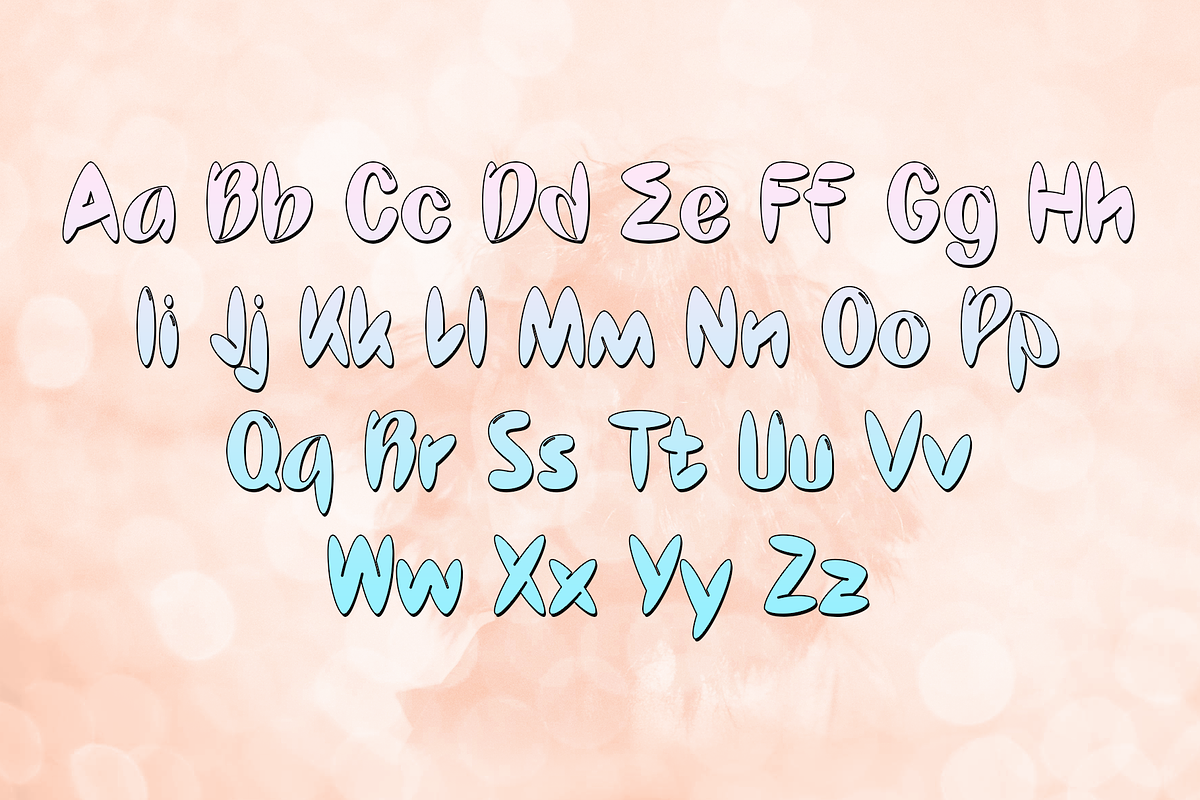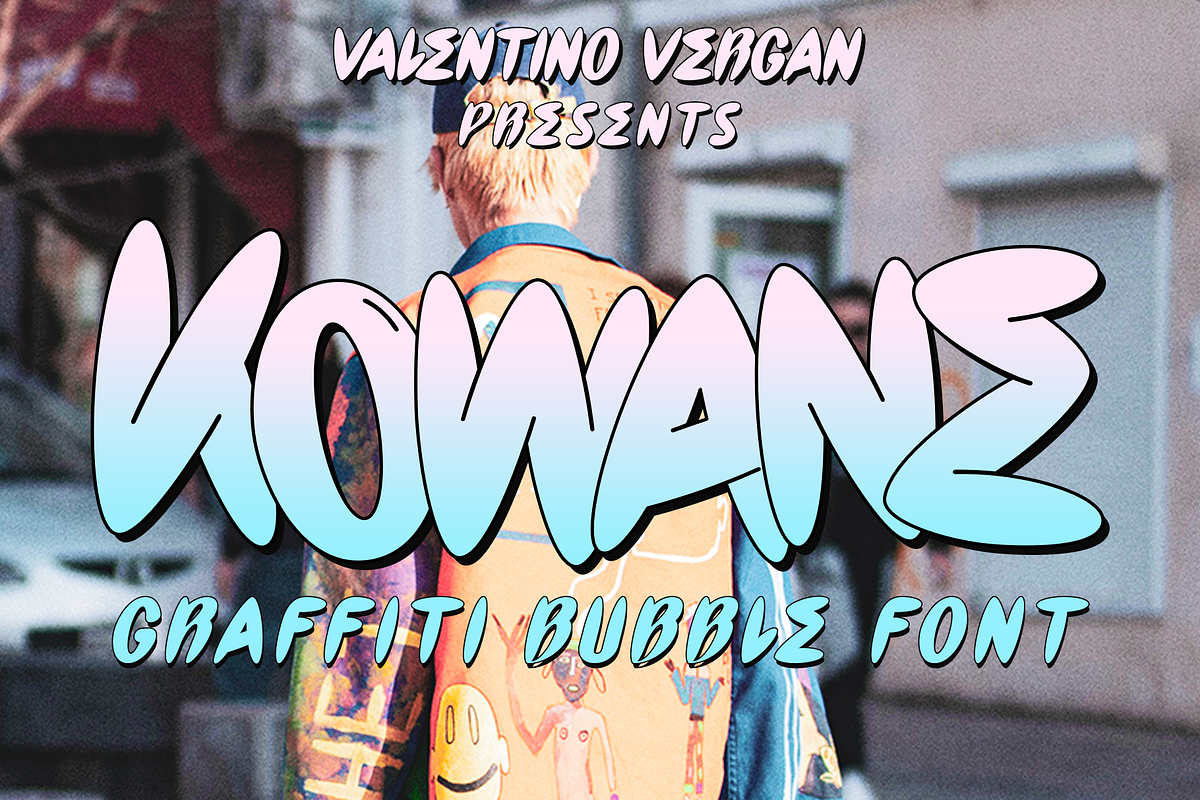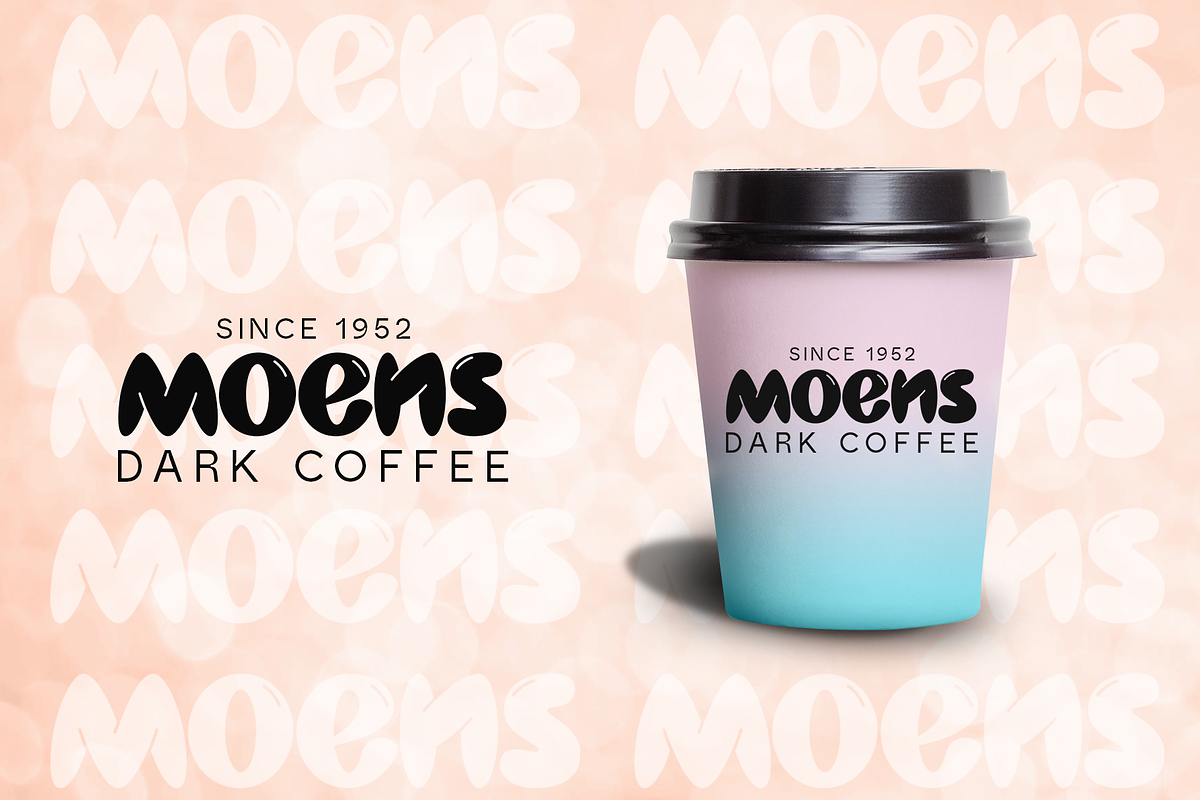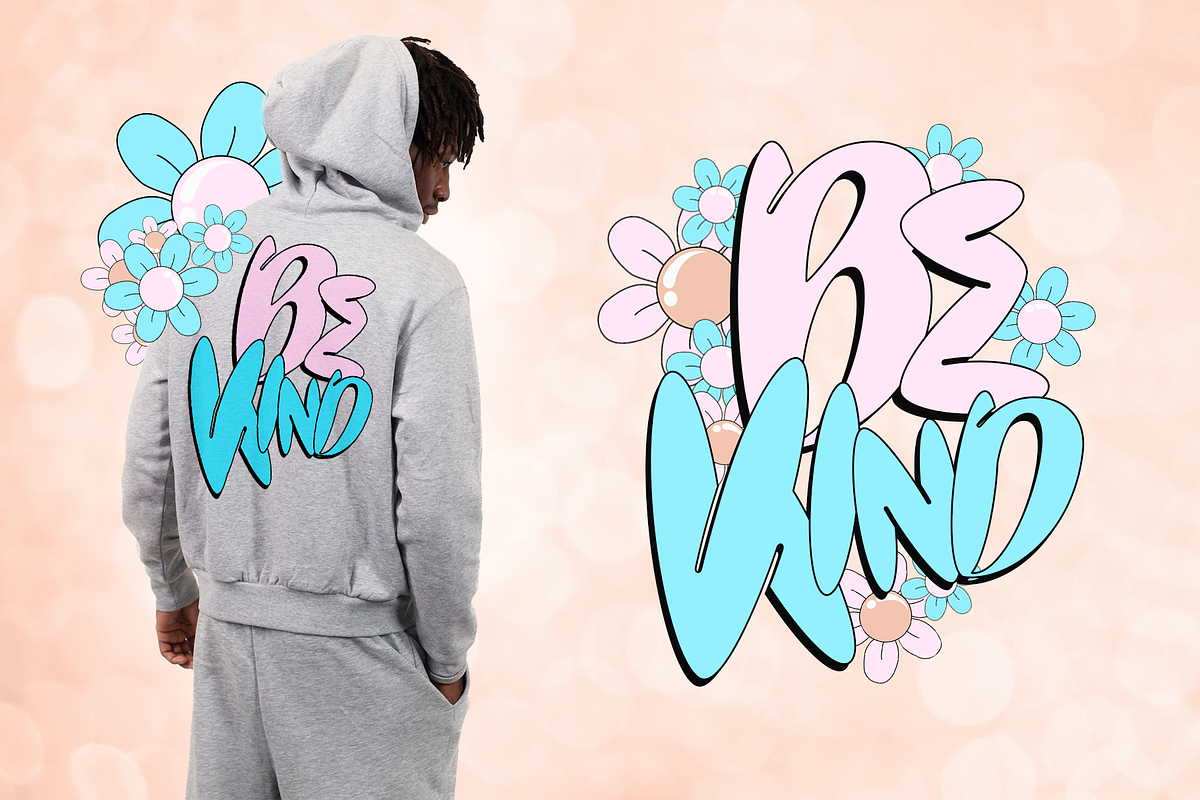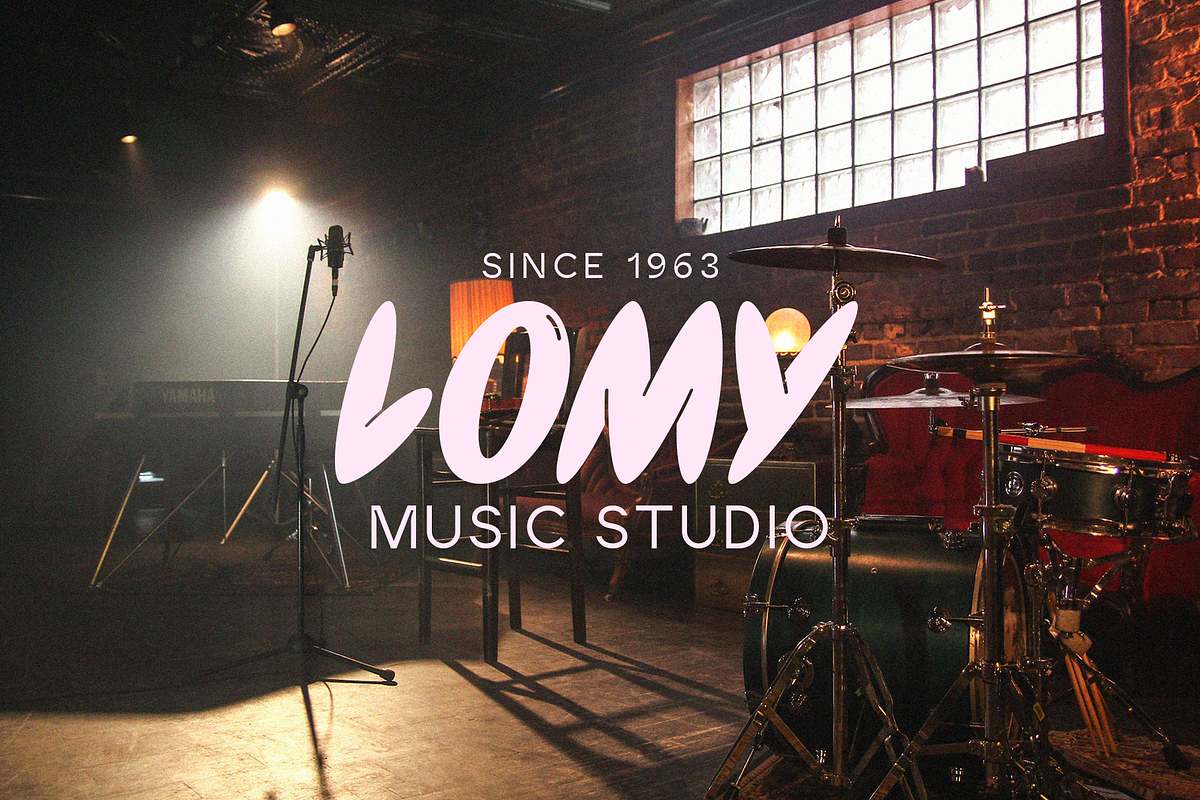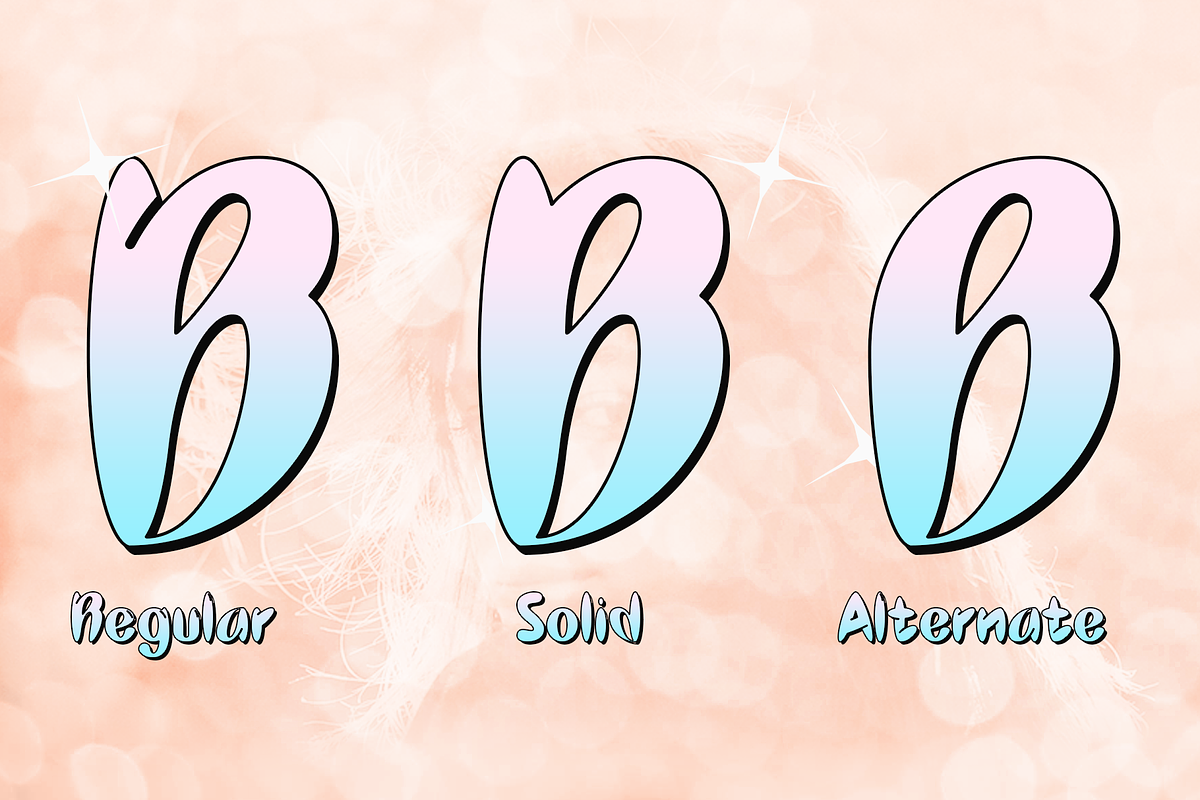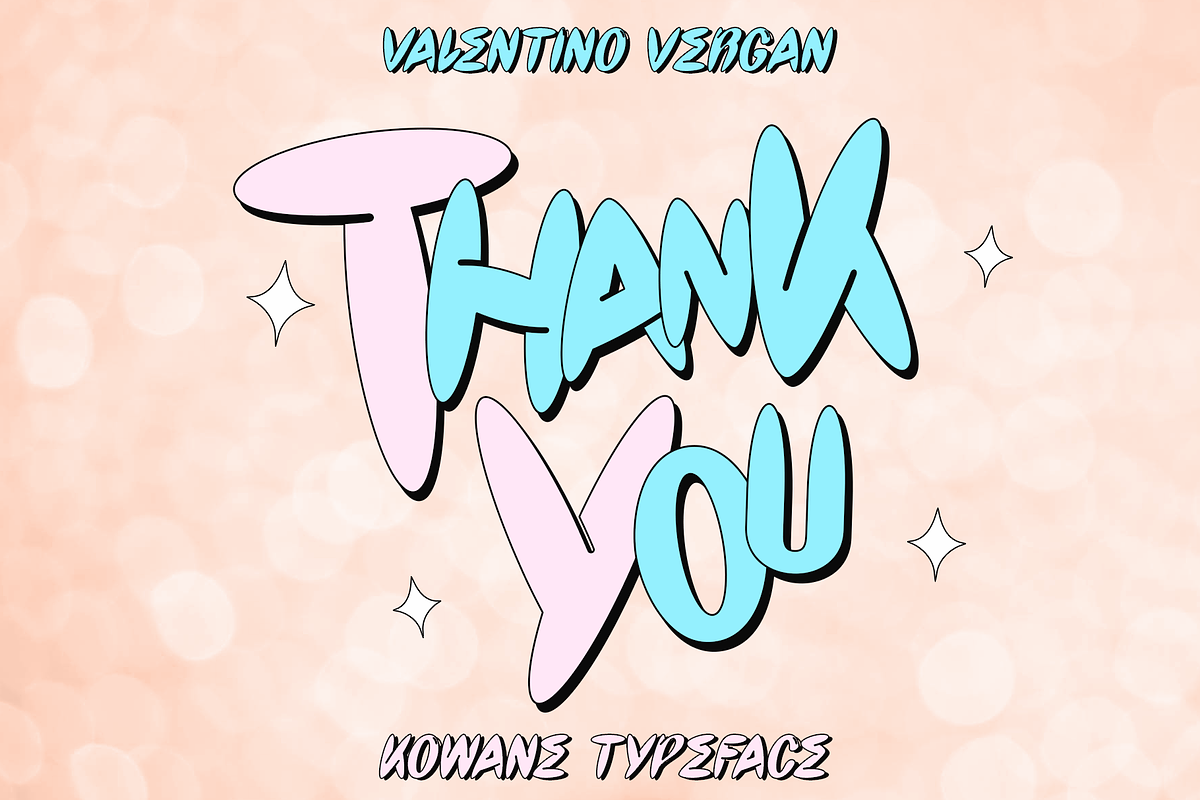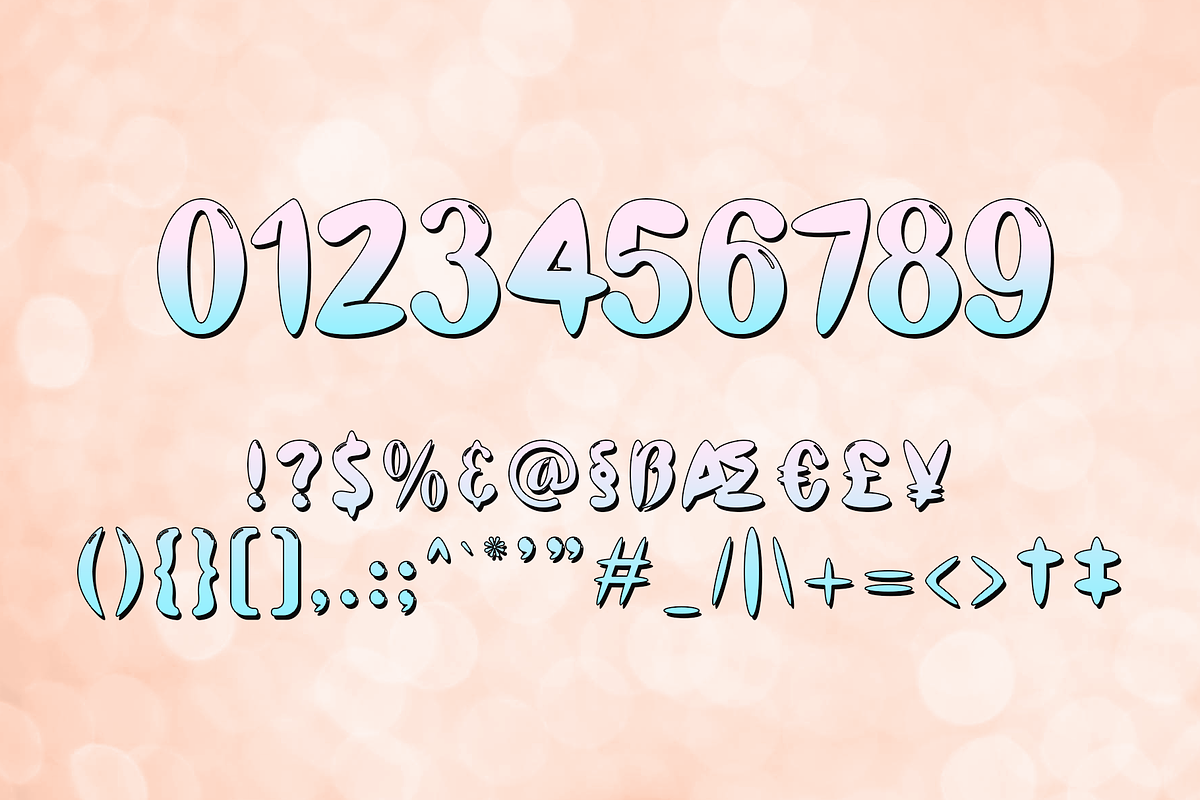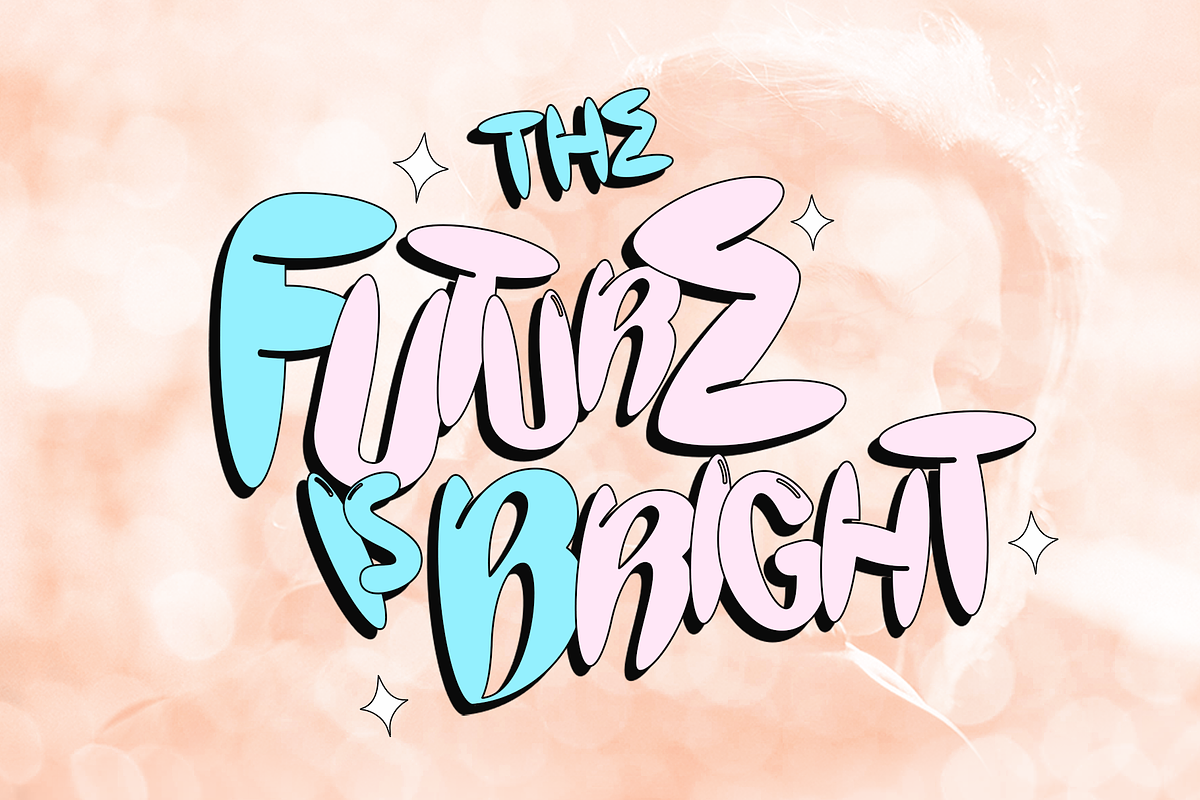
Kowane - Graffiti Bubble Font
Kowane is a very eye-catching and creative bubble font. Kowane is designed with fun and playful letters, making it great for retro designs and graffiti projects. Kowane comes in regular and oblique styles, included is a set of solid uppercase and lowercase letters.